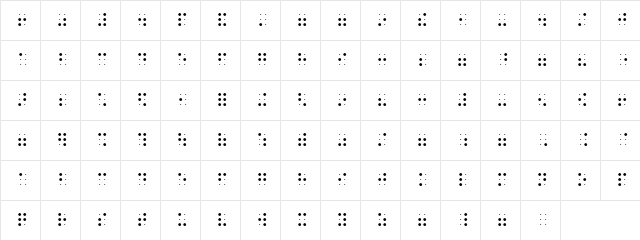
Braille-HC Regular
Design Context for Braille-HC Typeface
Braille-HC is a composed and adaptable typeface that performs quietly and consistently across a wide range of design contexts.